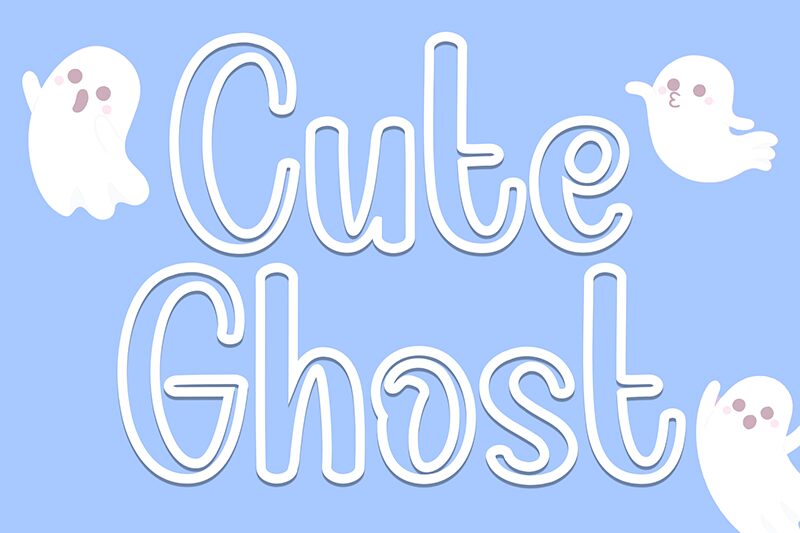
Cute Ghost
Cute Ghost font by Andi Moz is a free outlined brush display font. It stands out with a buoyant, double-line contour that feels like marshmallow letters traced with an inky rim—light inside, lively on the edges. The rounded turns and gentle wobble give it a friendly, “boo without the scare” charm, keeping legibility high while dialing up personality.
Using Cute Ghost, headlines pop on Halloween posters, kids’ birthday invites, stickers, classroom handouts, bake-sale signs, packaging for sweets, and playful YouTube thumbnails. The roomy counters and consistent rhythm make it read cleanly at large sizes. Pair this free font with a simple rounded sans for body copy, and let the outlined letters carry the spotlight.